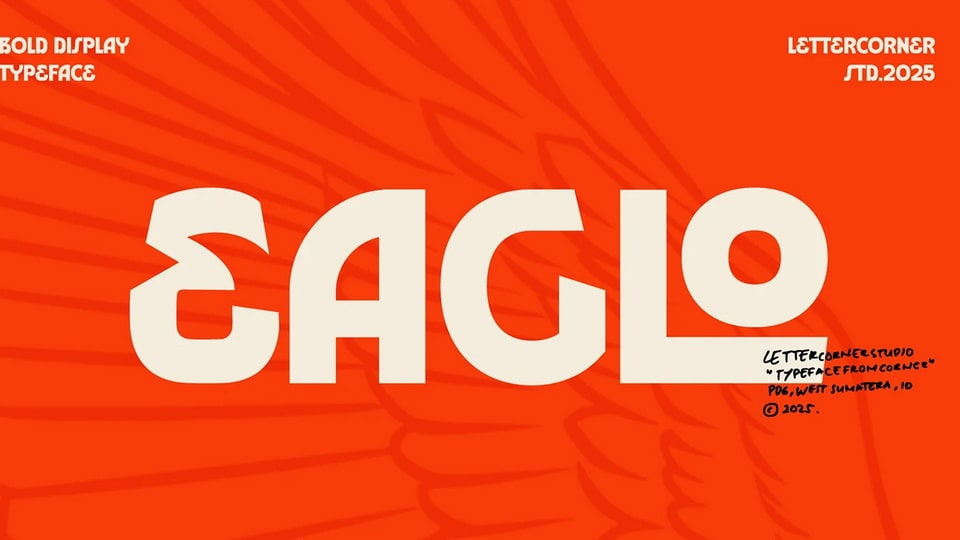
Download Eaglo font, a bold sans serif typeface that soars with strength and precision. Built with clean geometry and confident proportions, it captures the sharp focus and modern spirit
Designer: Lettercorner Studio